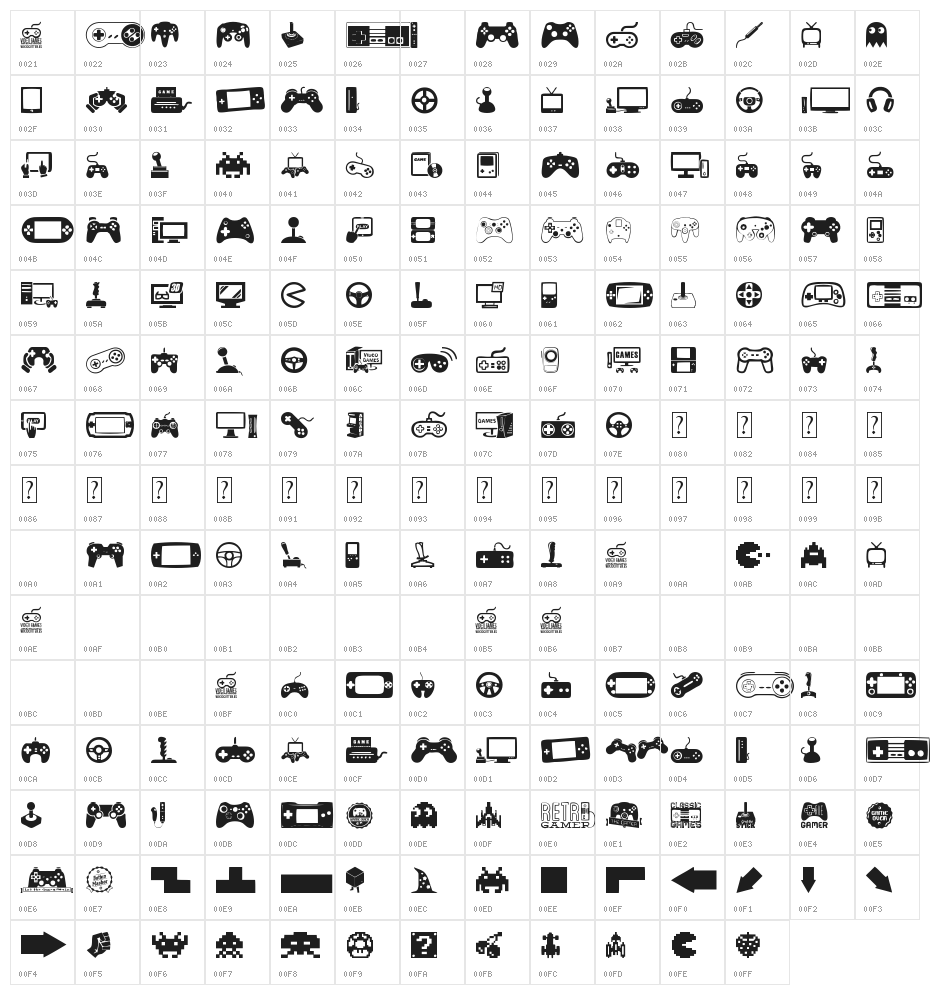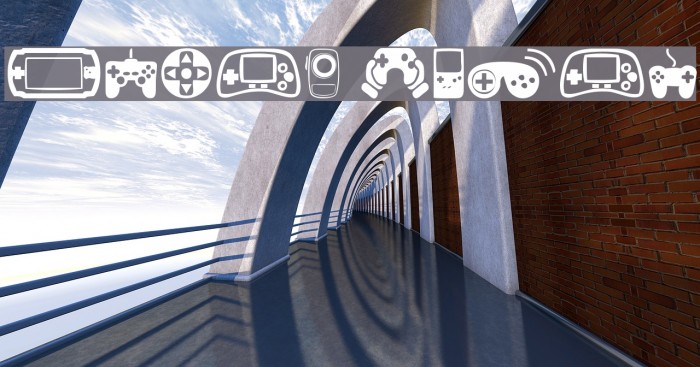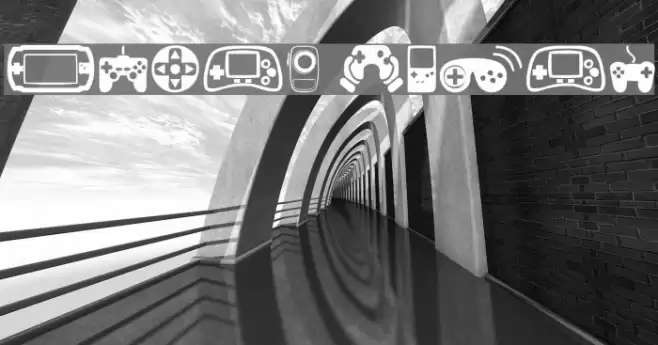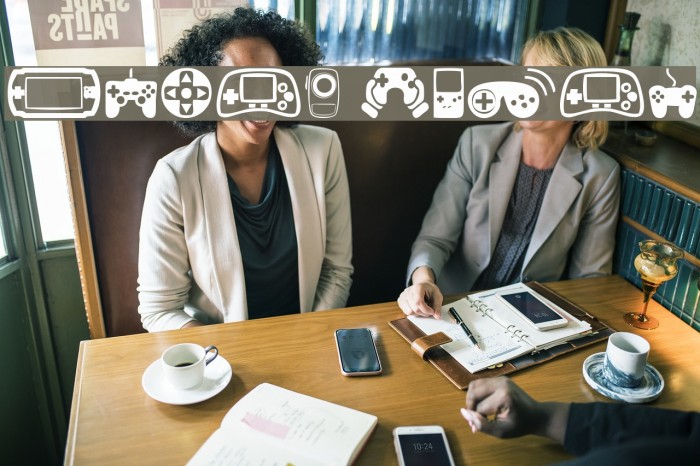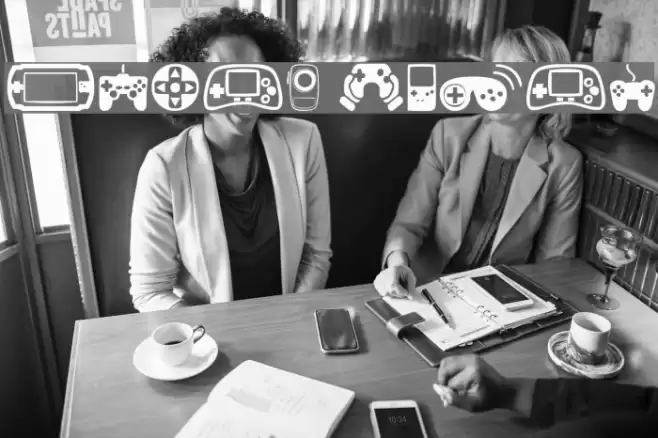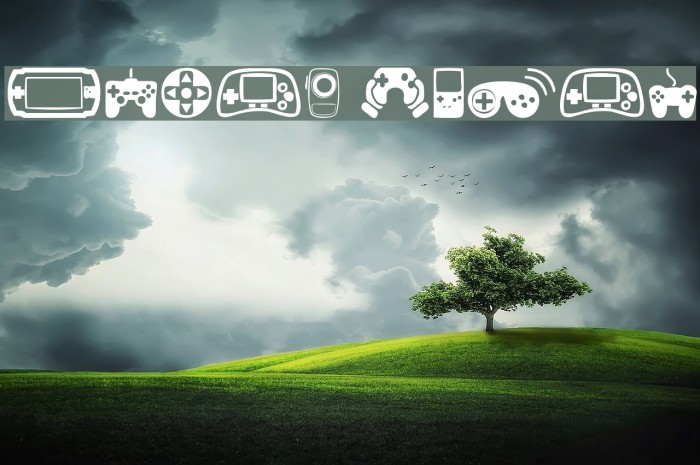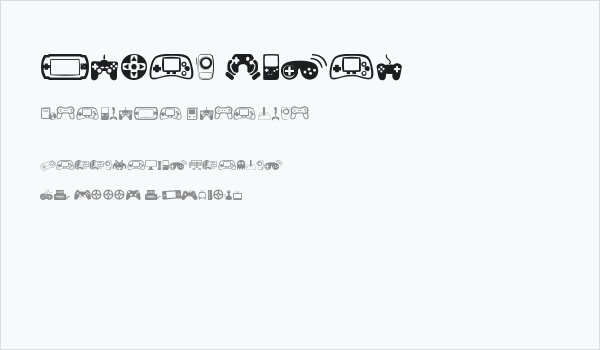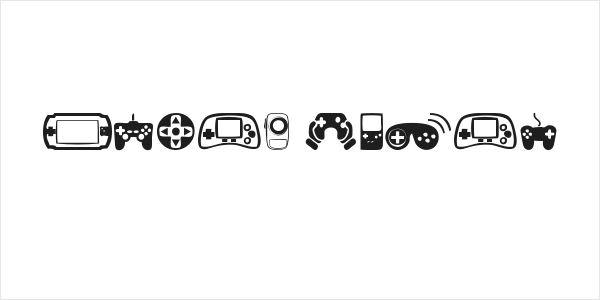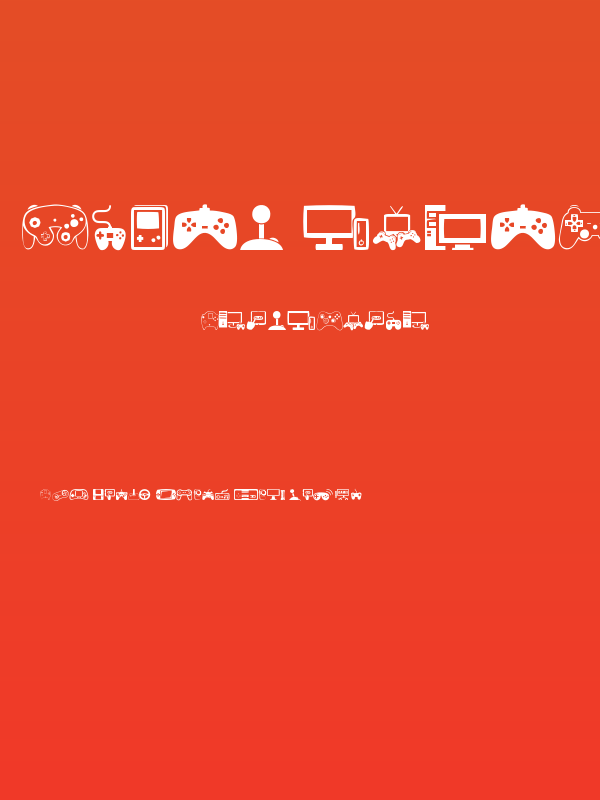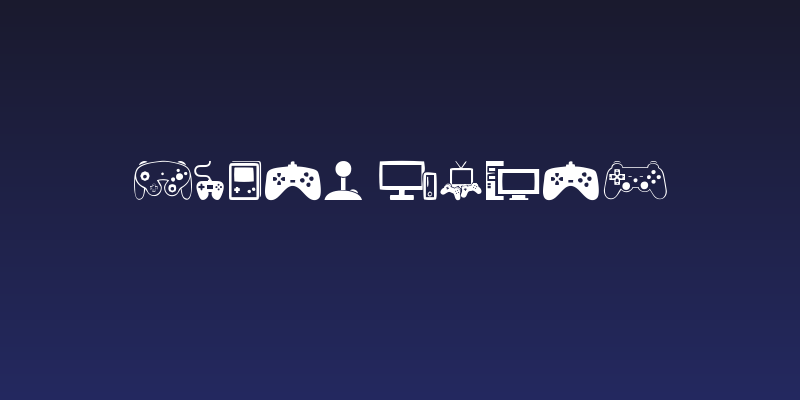
video games Font
video games Description
A decorative display font composed entirely of video game-related icons, including controllers, handheld consoles, joysticks, steering wheels, arcade machines, and monitors. Each character is represented by a unique gaming device or symbol, rendered in a bold, high-contrast black-and-white silhouette style.
| Overall Style | Decorative, Playful, Thematic |
| Use Case | Headlines, Logos, Posters, Themed graphics |
| Proposed Projects | Gaming event posters, youth-oriented branding, themed invitations, social media graphics, educational materials about gaming history. |